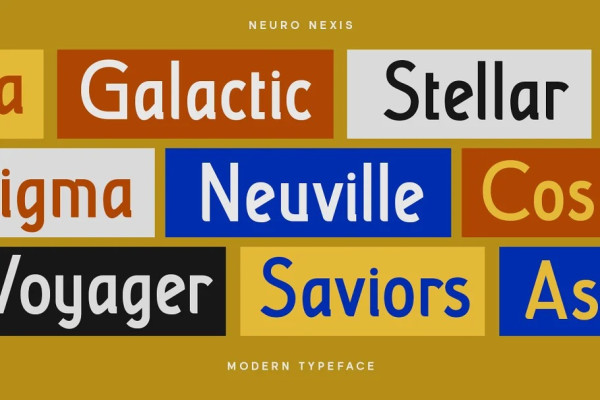
Neuro Nexis Font
Neuro Nexise Font is the epitome of modernity and dynamic sans. With its futuristic design that convey a sense of precision and efficiency. With Neuro Nexise, your text will stand out as the ultimate embodiment of progress and innovation.